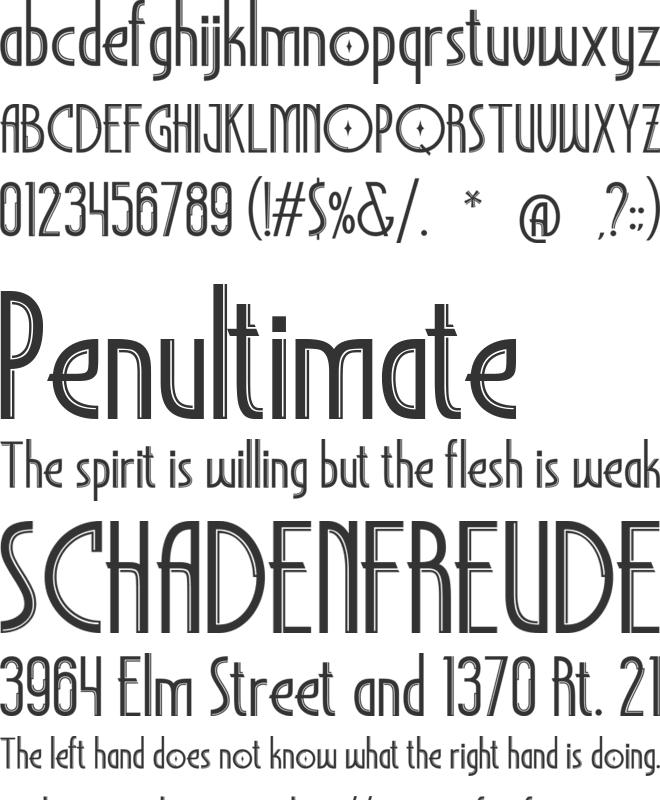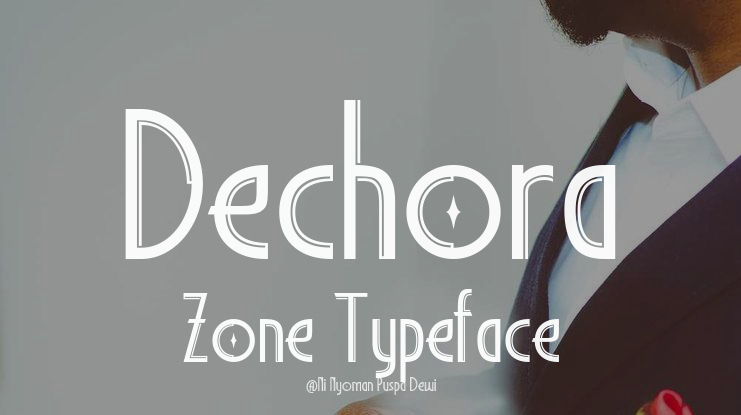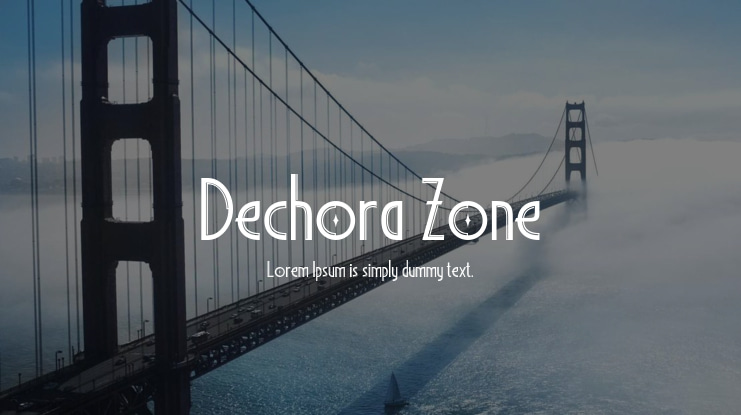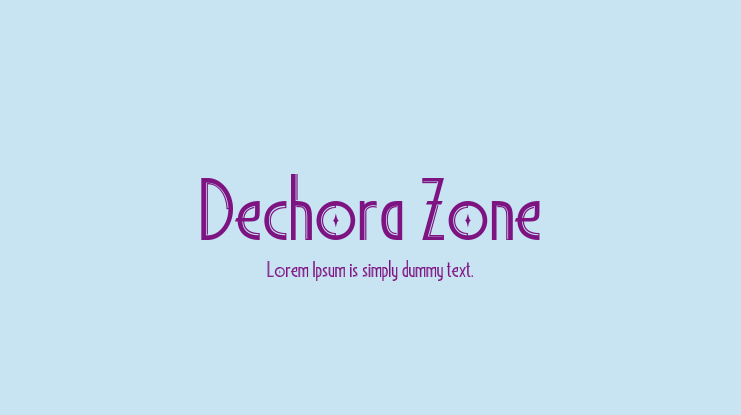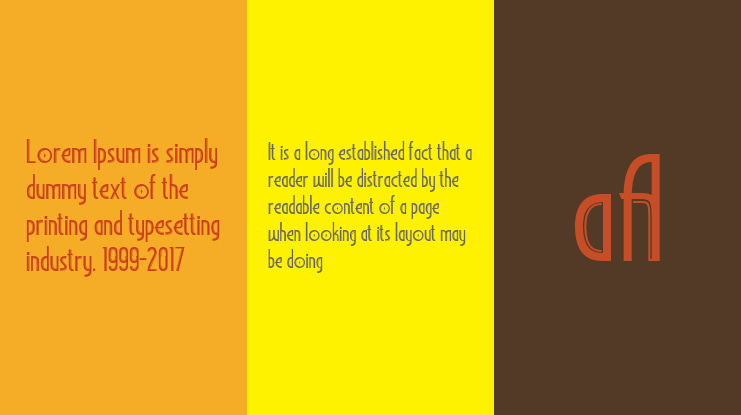
Dechora Zone Font
**Dechora Zone Typeface**
Elevate your designs with the Dechora Zone Typeface, a bold reimagining of Art Deco elegance. This typeface encapsulates the iconic aesthetic of the Art Deco era with a modern flair. Dynamic, flowing lines blend vintage charm with contemporary sophistication, making it truly unique.